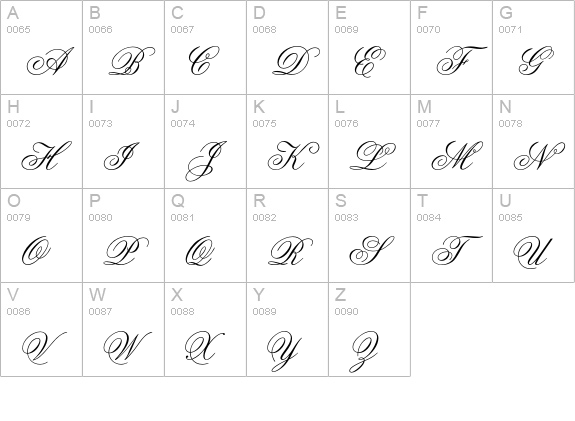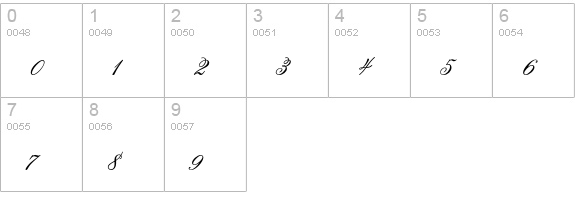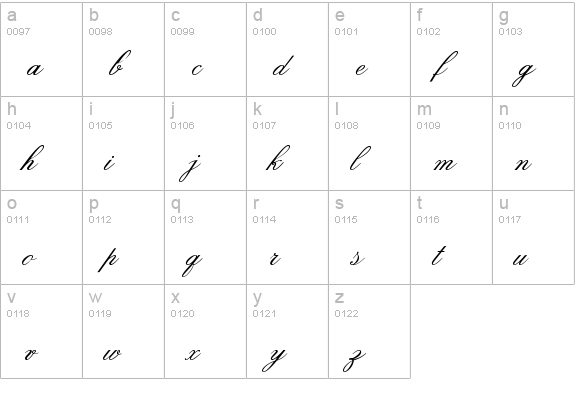
Flemish ScriptII Std is a elegant and sophisticated font that exudes timeless charm and classic appeal. With its intricate details and graceful curves, this font is perfect for adding a touch of elegance to any design project. Whether you are creating invitations, greeting cards, or branding materials, Flemish ScriptII Std is sure to make a lasting impression. The best part? Flemish ScriptII Std is available for free download at FontsMarket.com. Now you can easily access this stunning font and elevate your design projects without breaking the bank. Don't miss out on the opportunity to enhance your work with the beauty and grace of Flemish ScriptII Std. Download it today and start creating stunning designs that stand out from the rest.